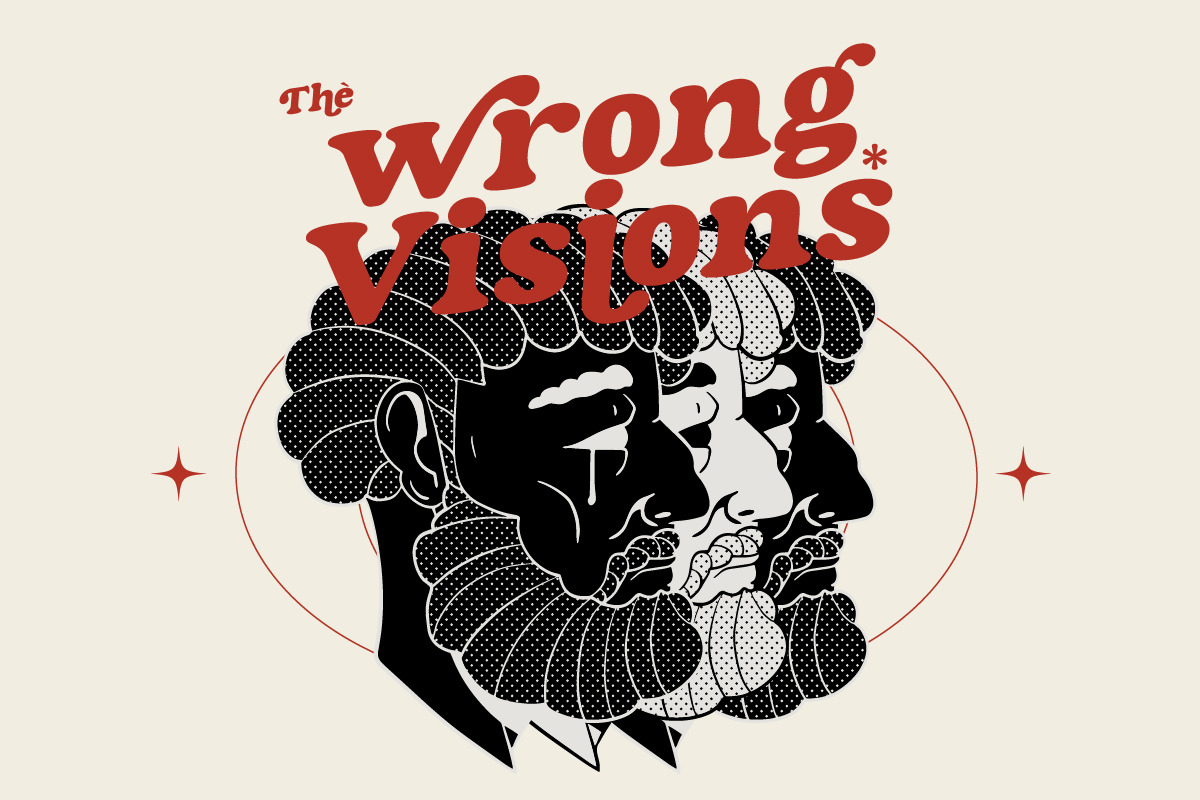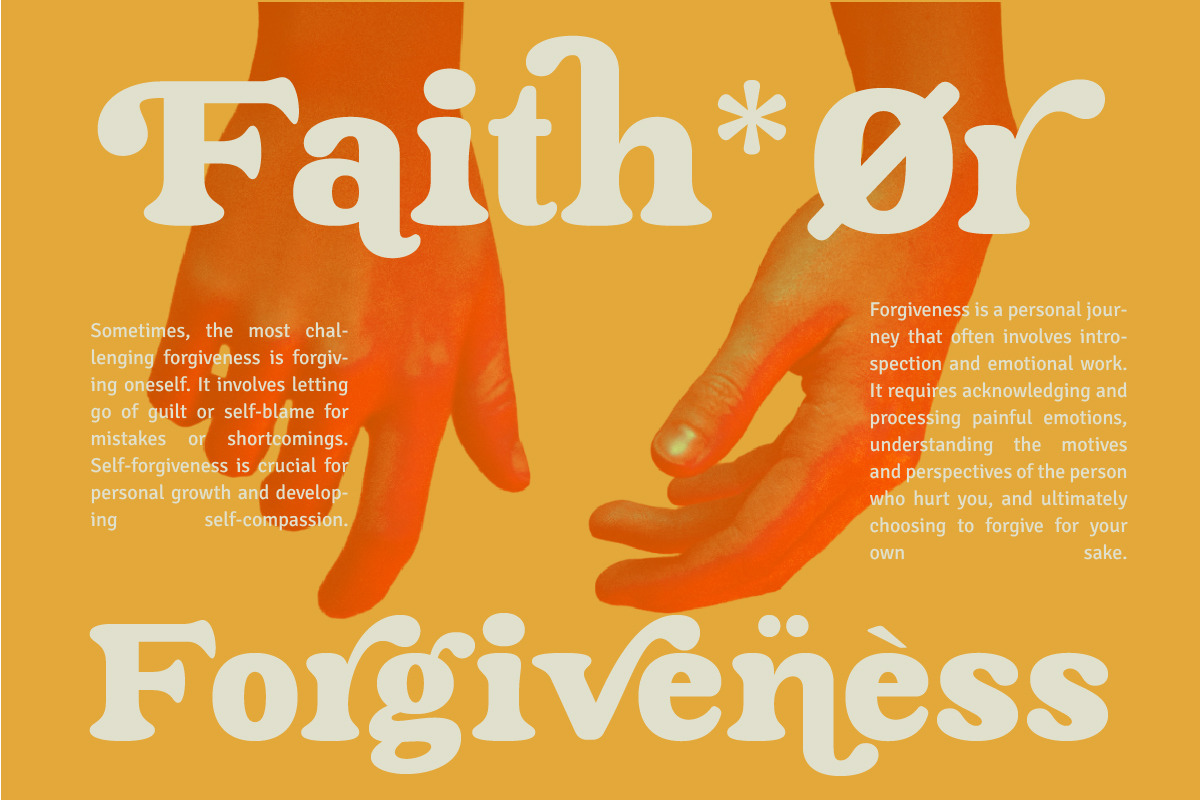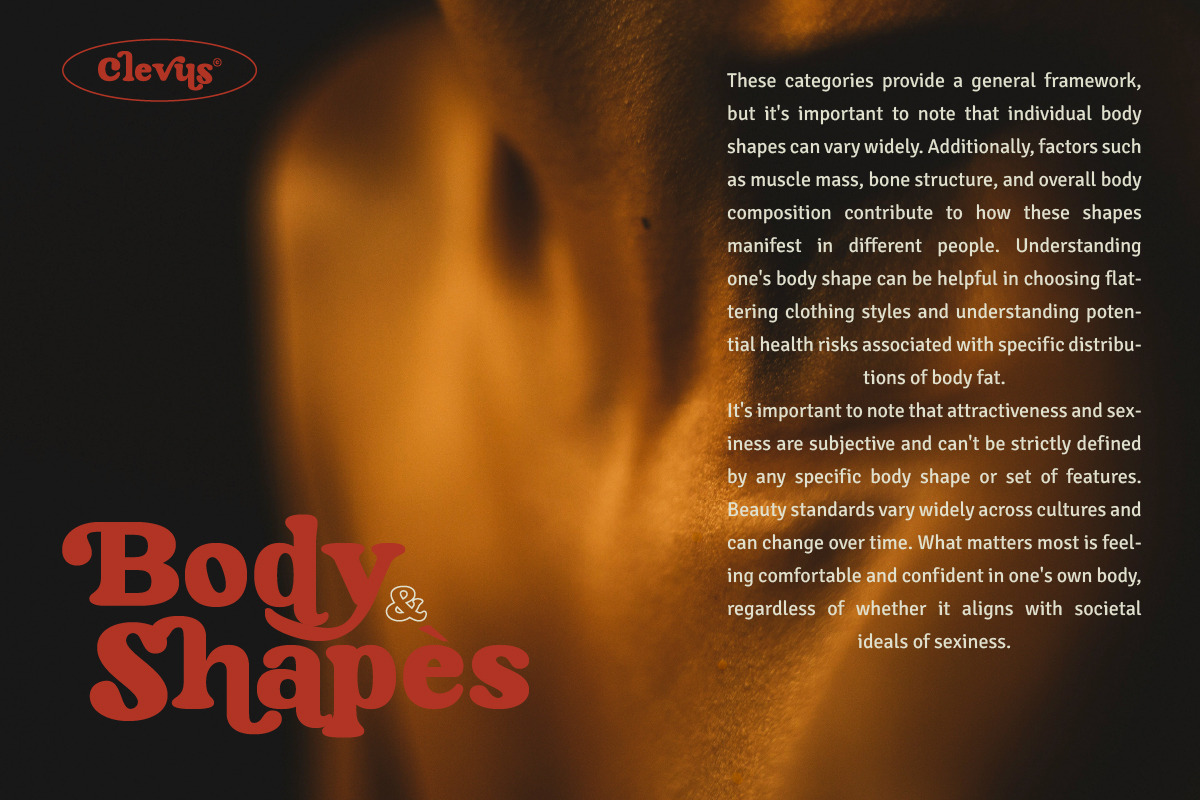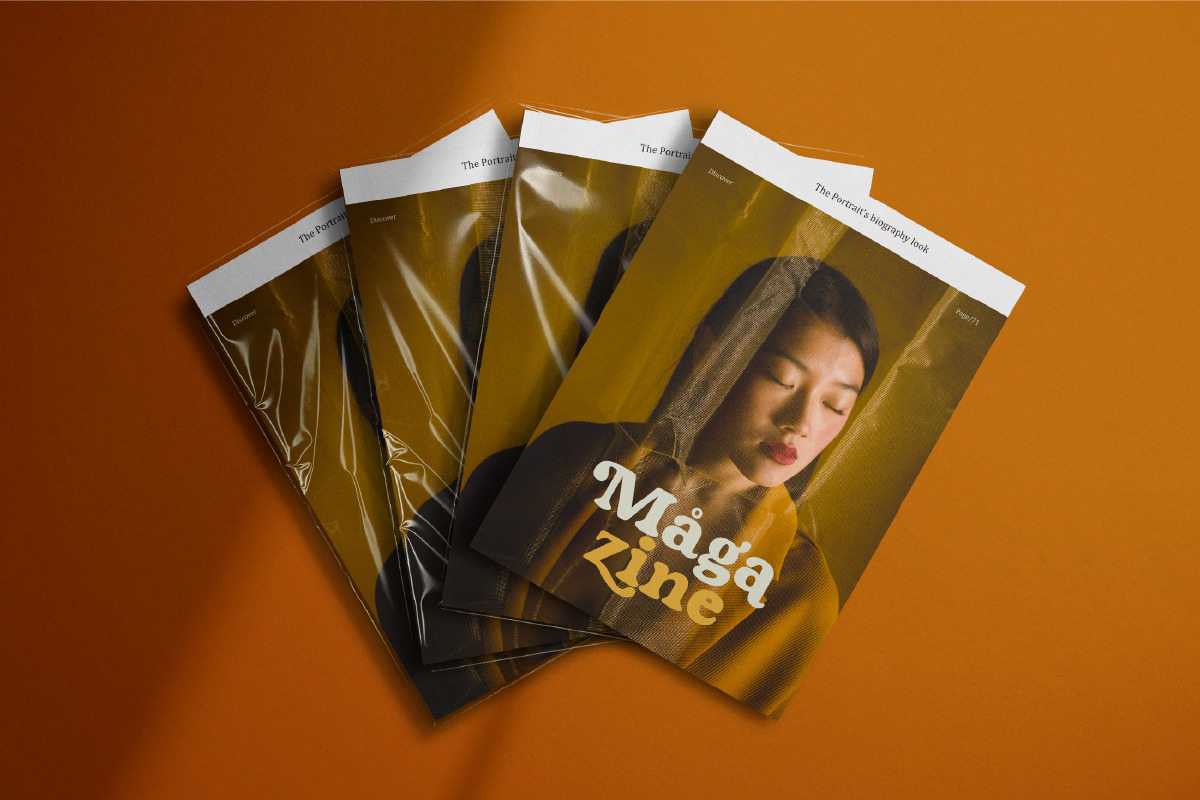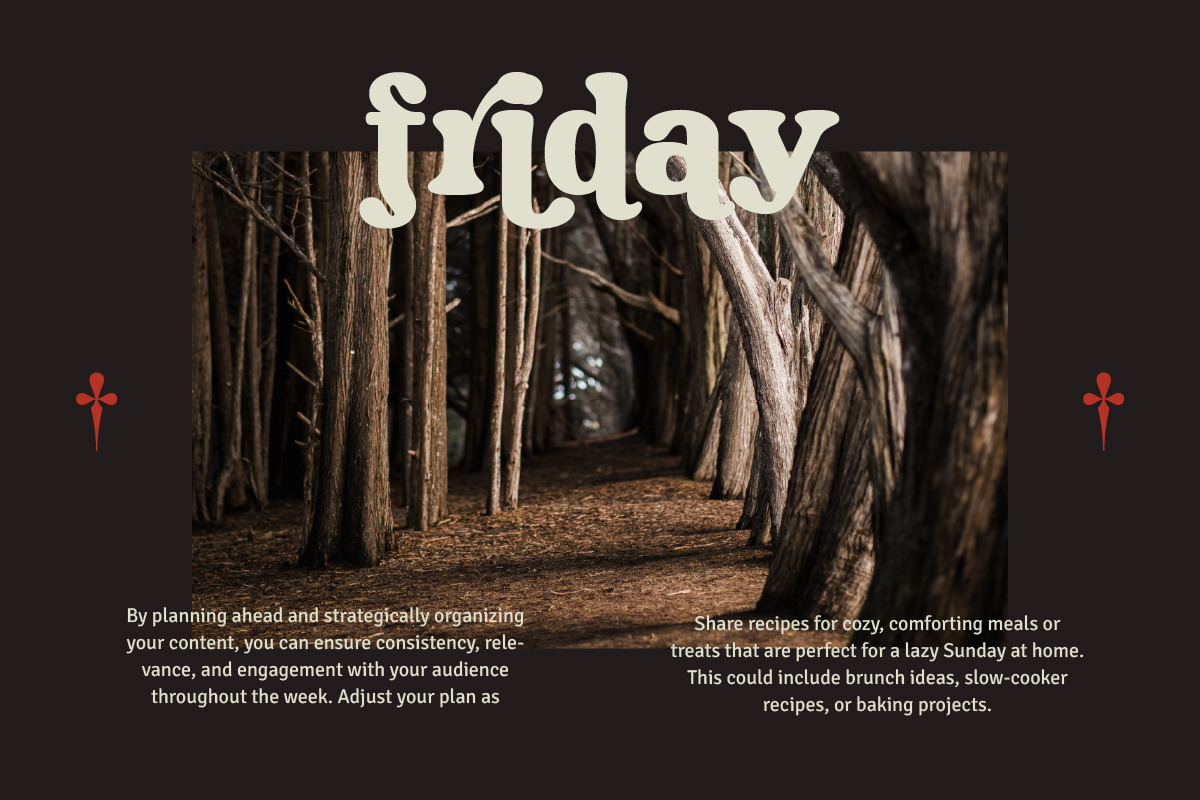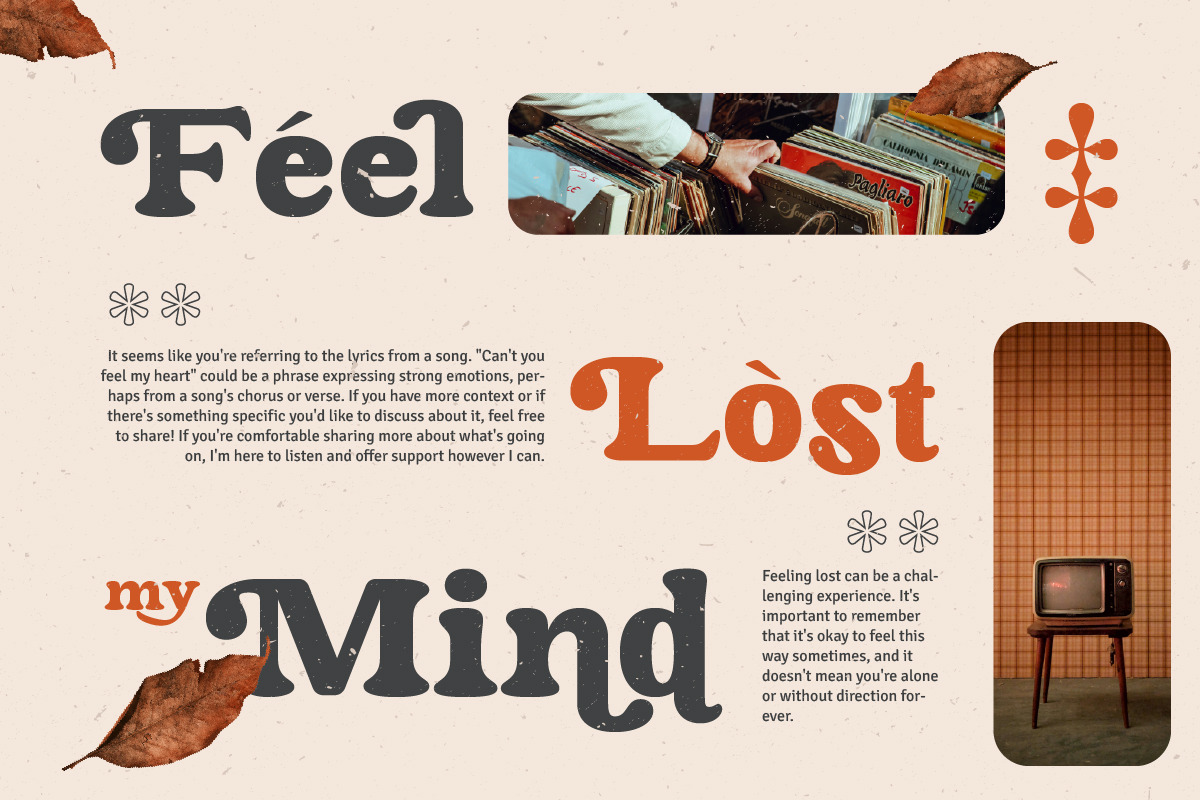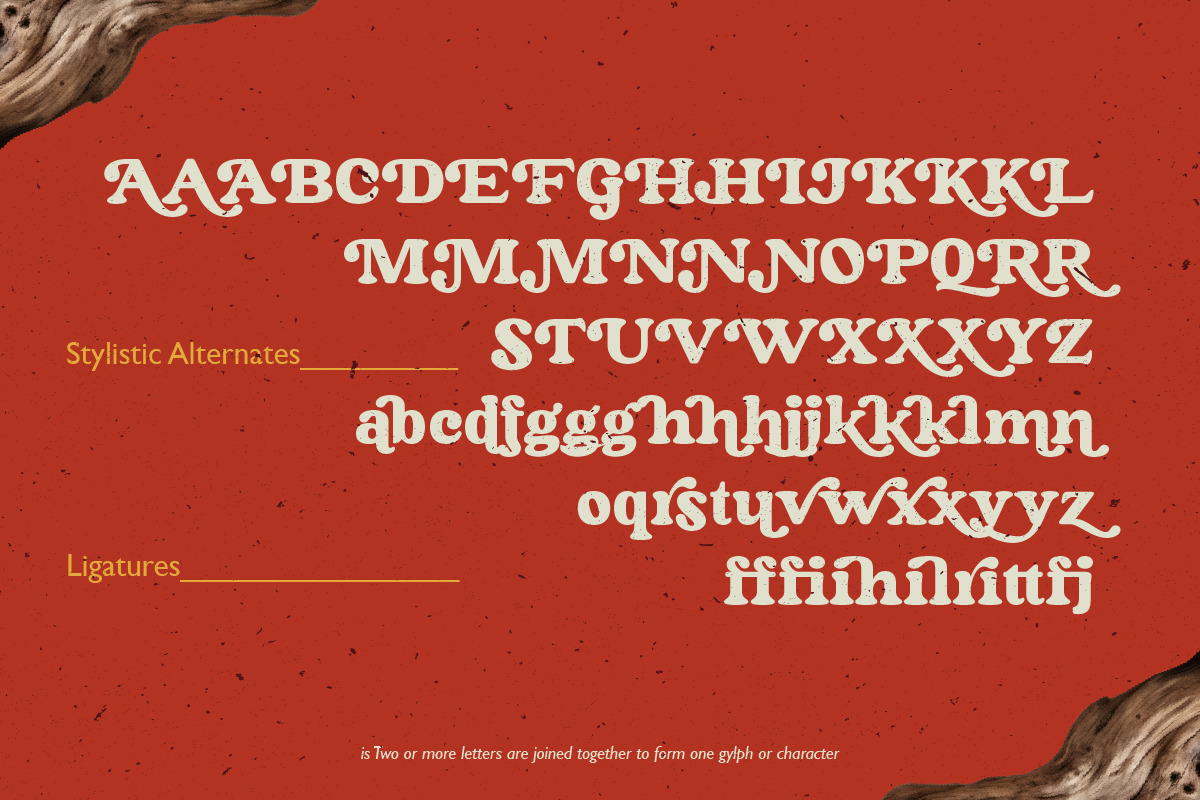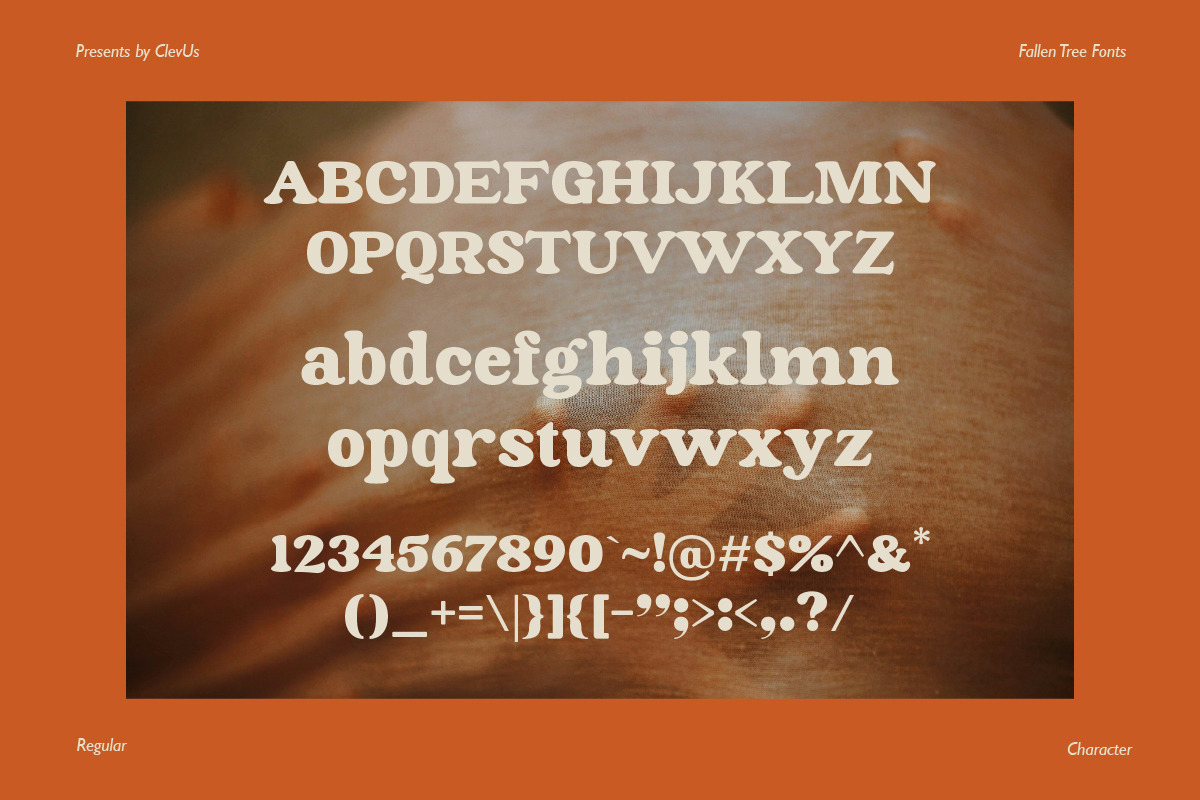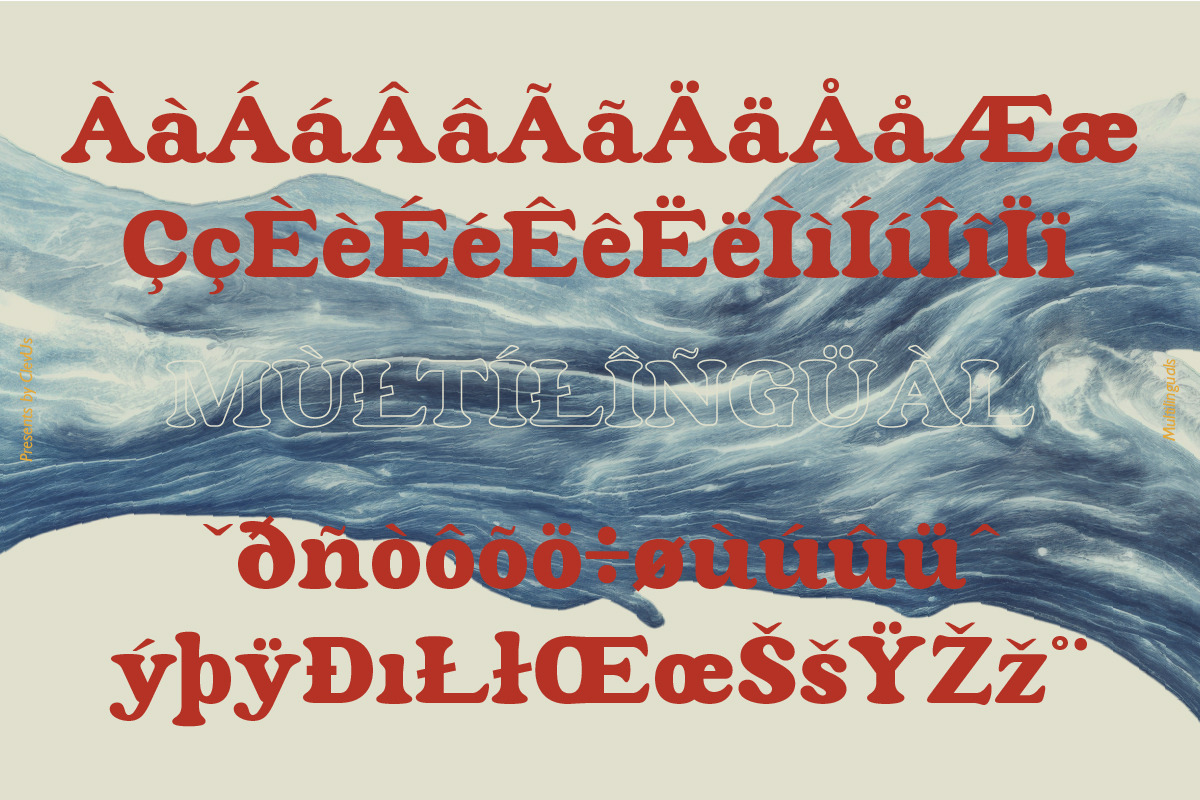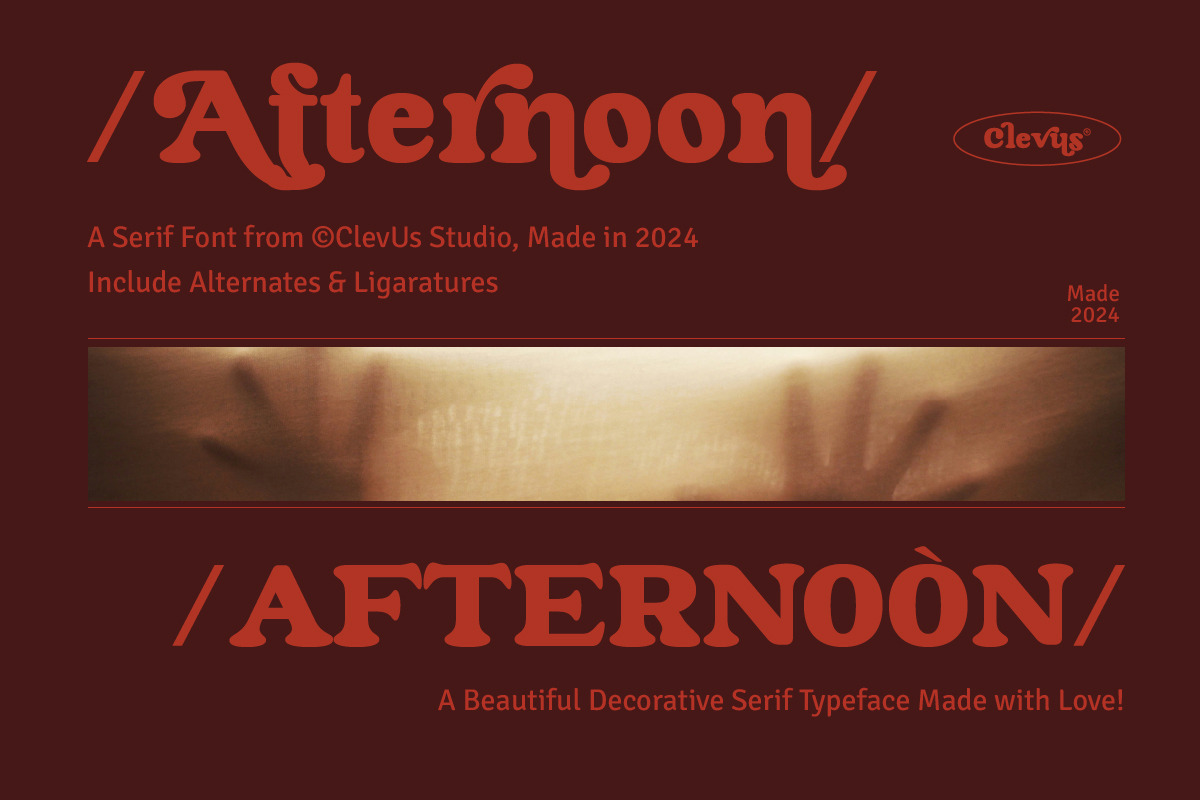
Fallen Tree | Retro Serif
Proudly present "Fallen Tree" Fallen Tree Serif Font. In Fallen Tree Font is a stylish font It has both modern and retro look. Comes with alternatives and ligatures, helps to create stunning logos, quotes, posts, blog posts. branding projects, magazine imagery, wedding invitations, and much more.